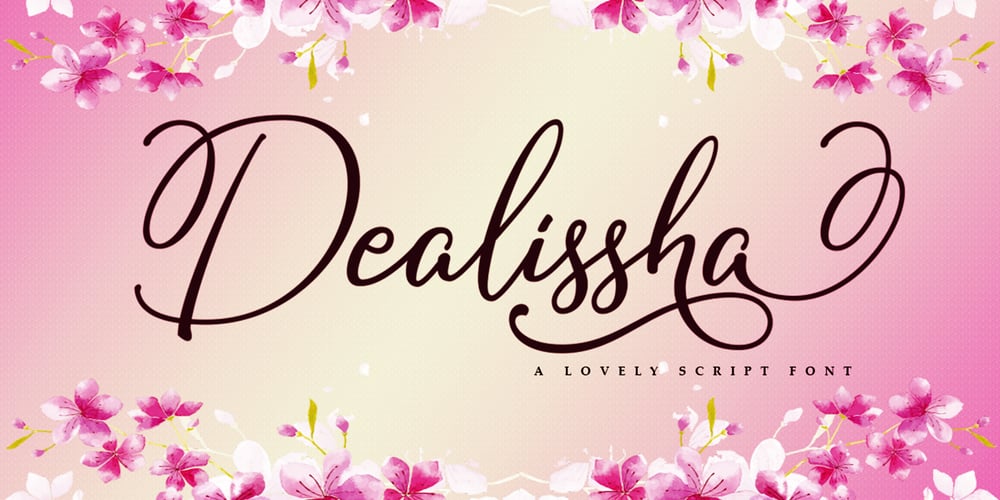
Dealissha Script Font Family was designed by Cut Nurfajarlia and published by Alandya TypeFoundry. Dealissha Script contains 1 styles and family package options. Dealissha Script is a lovely script font with a feminine feel. It was built with OpenType features and includes many beginning and ending swashes to give your design an elegant touch. You can toggle between both the regular and swashes font to get a handwritten and professional look. To enable the OpenType Stylistic alternates, you need a program that supports OpenType features such as Adobe Illustrator , Adobe Indesign & CorelDraw , Microsoft Word 2010 or later versions.